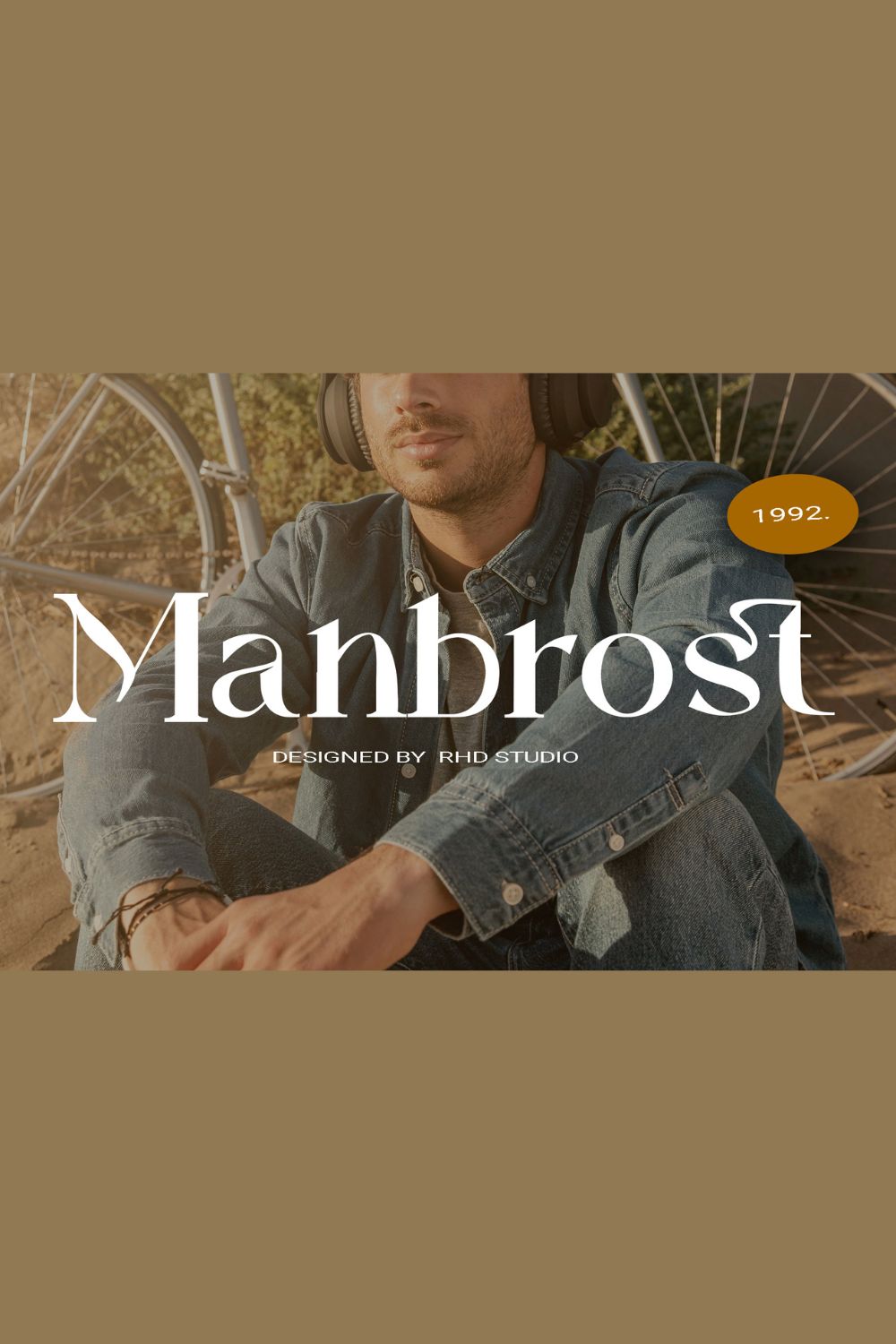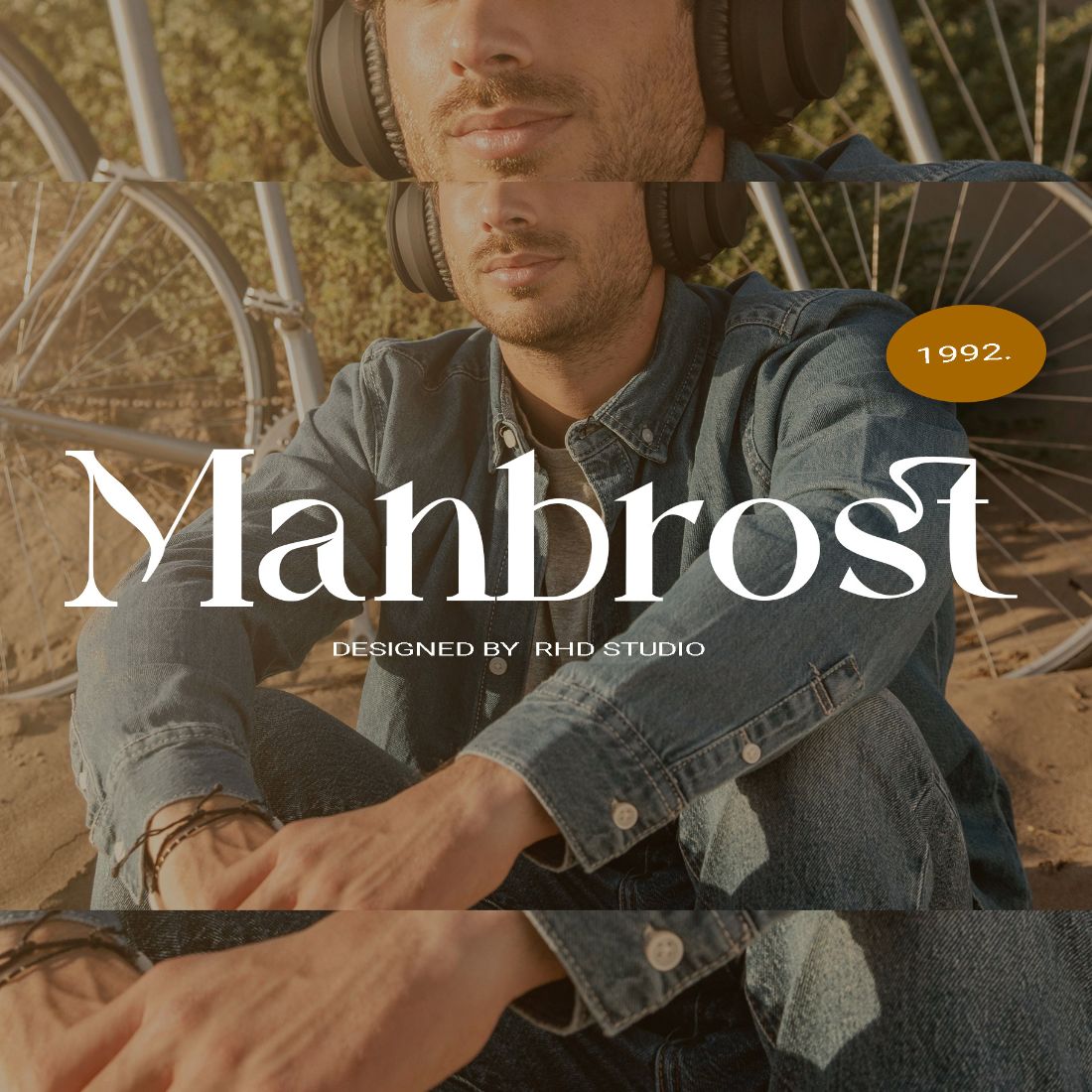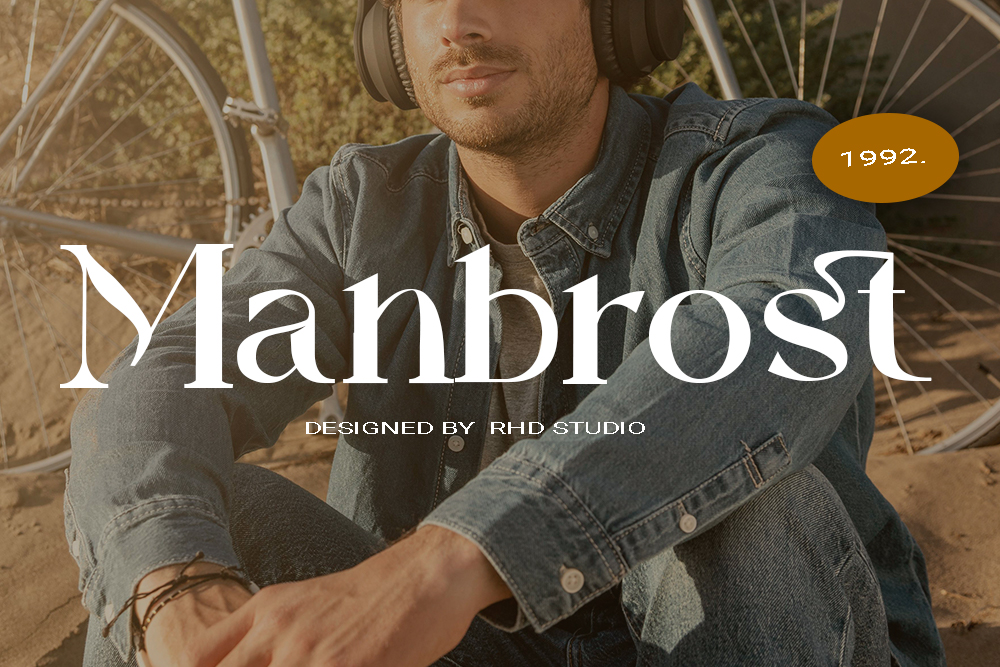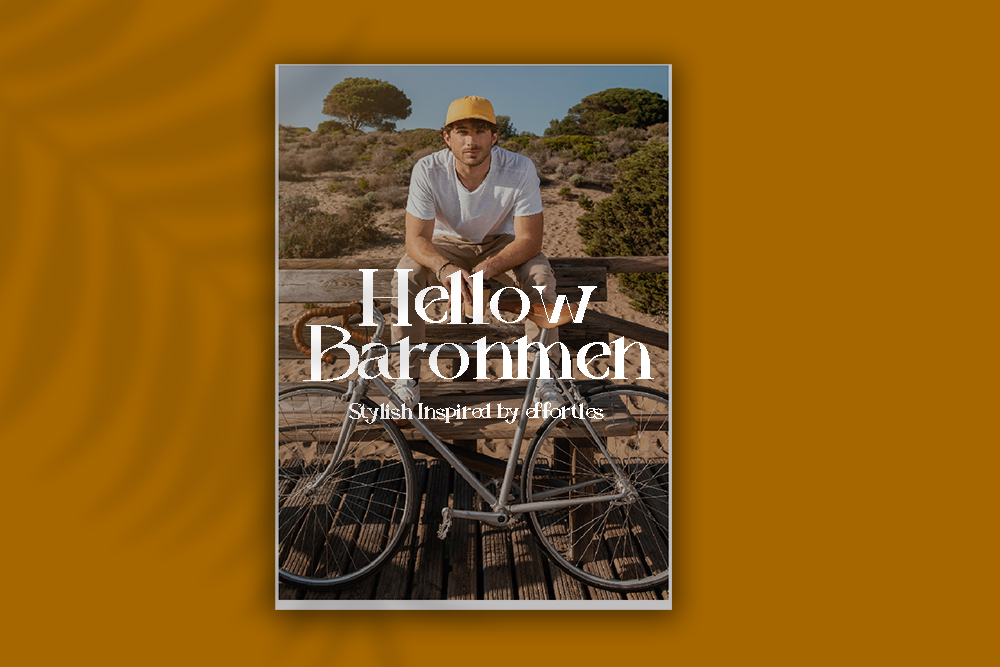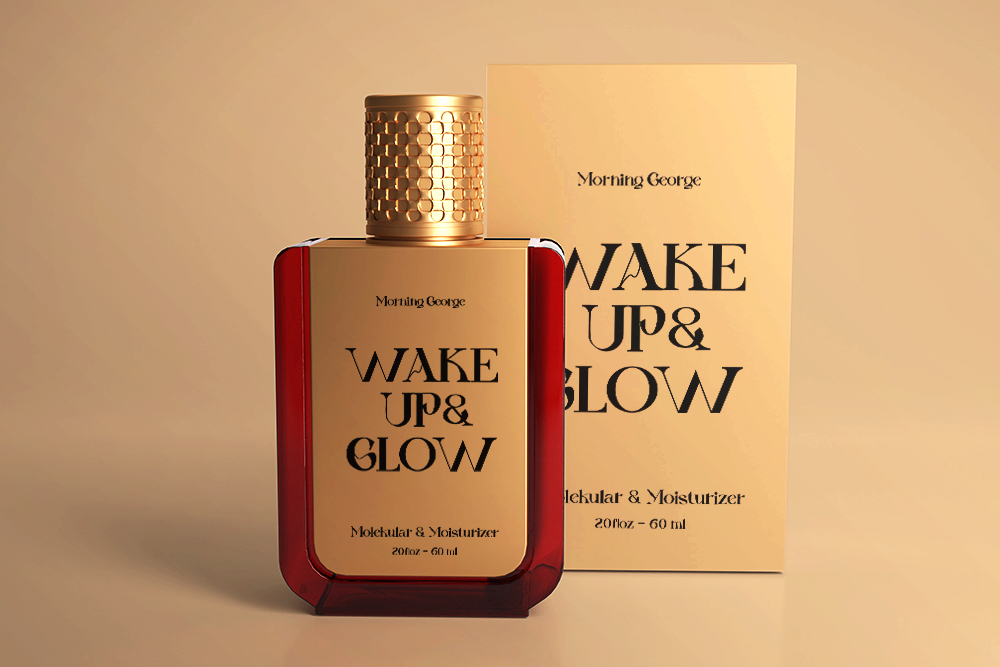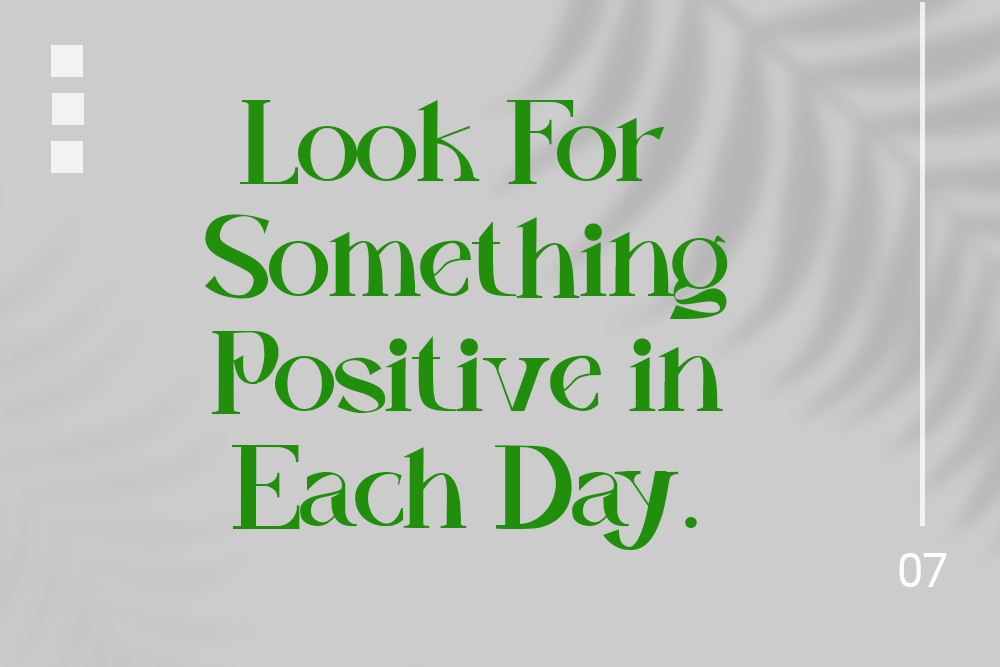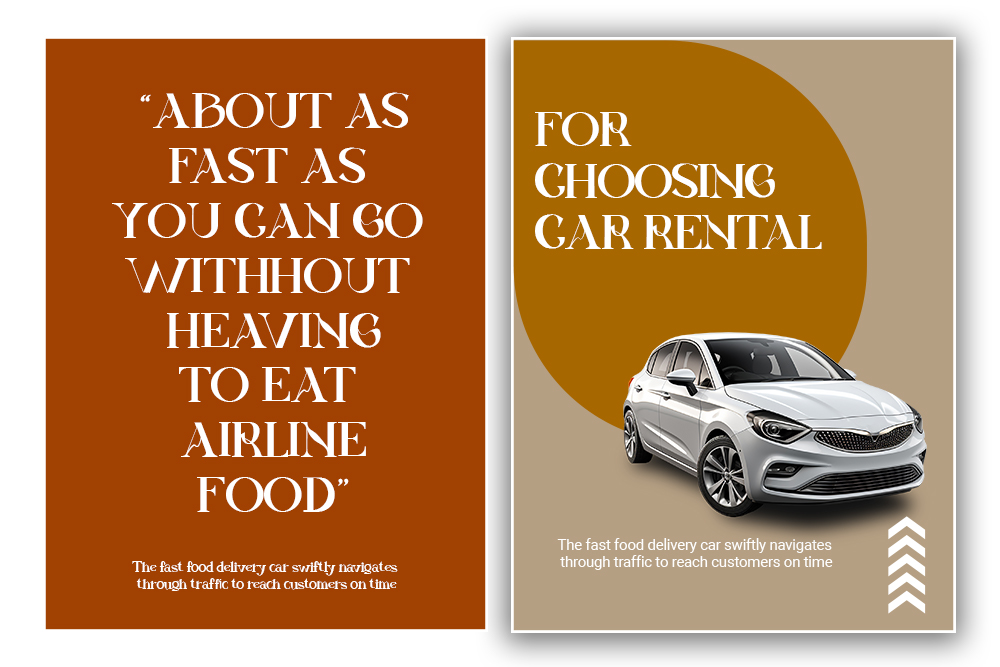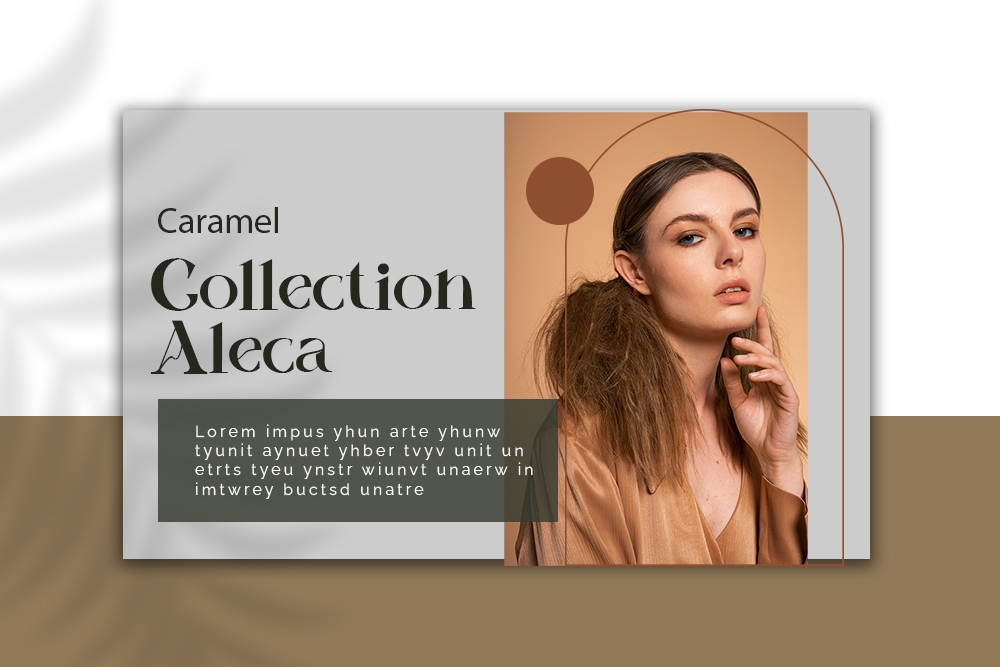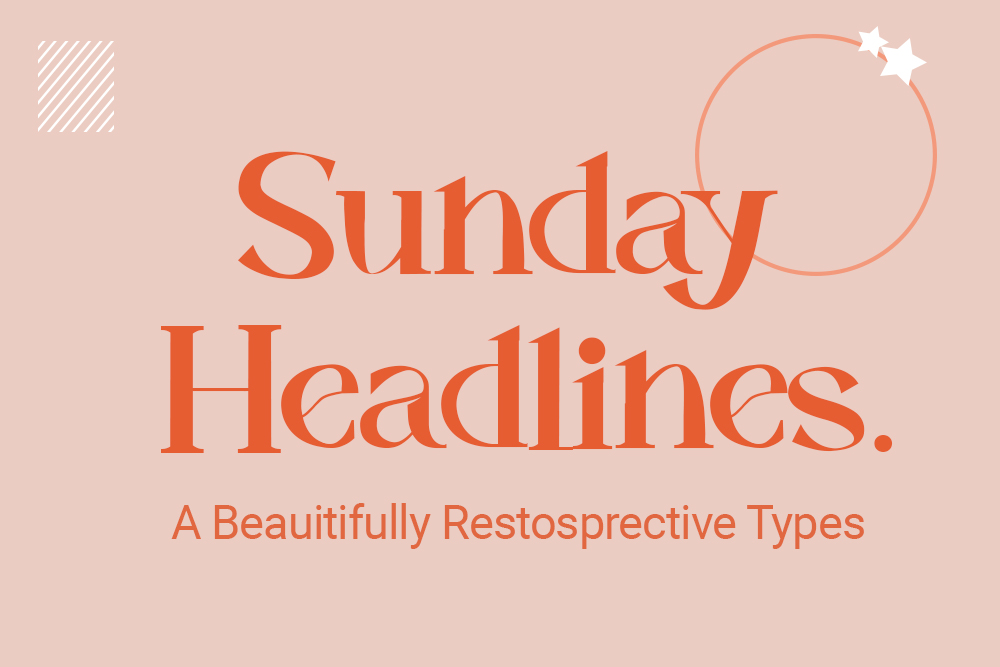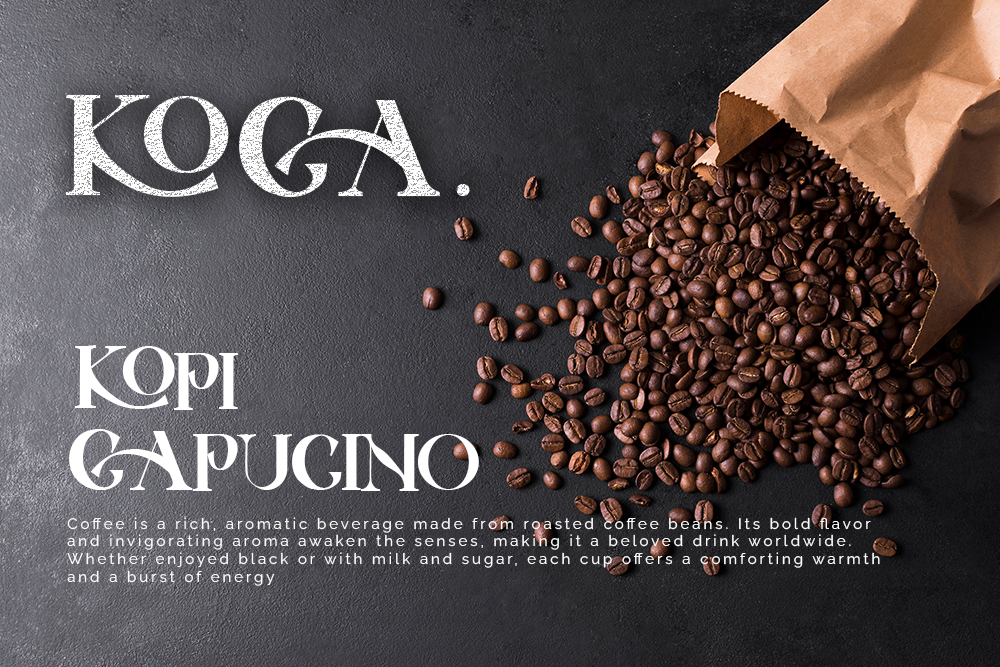
Hello everyone, I would like to introduce Manbrost A flirtatiously charming retro-inspired font.
Manbrost A flirtatiously charming retro-inspired typeface with wonderful versatility, can be used for a variety of projects such as branding, labels, photography, invitations, stationery, wedding designs, social media posts, advertising, product packaging, product design, and more.
– Uppercase and Lowercase letters
– Numbering and Punctuations
– Multilingual Support